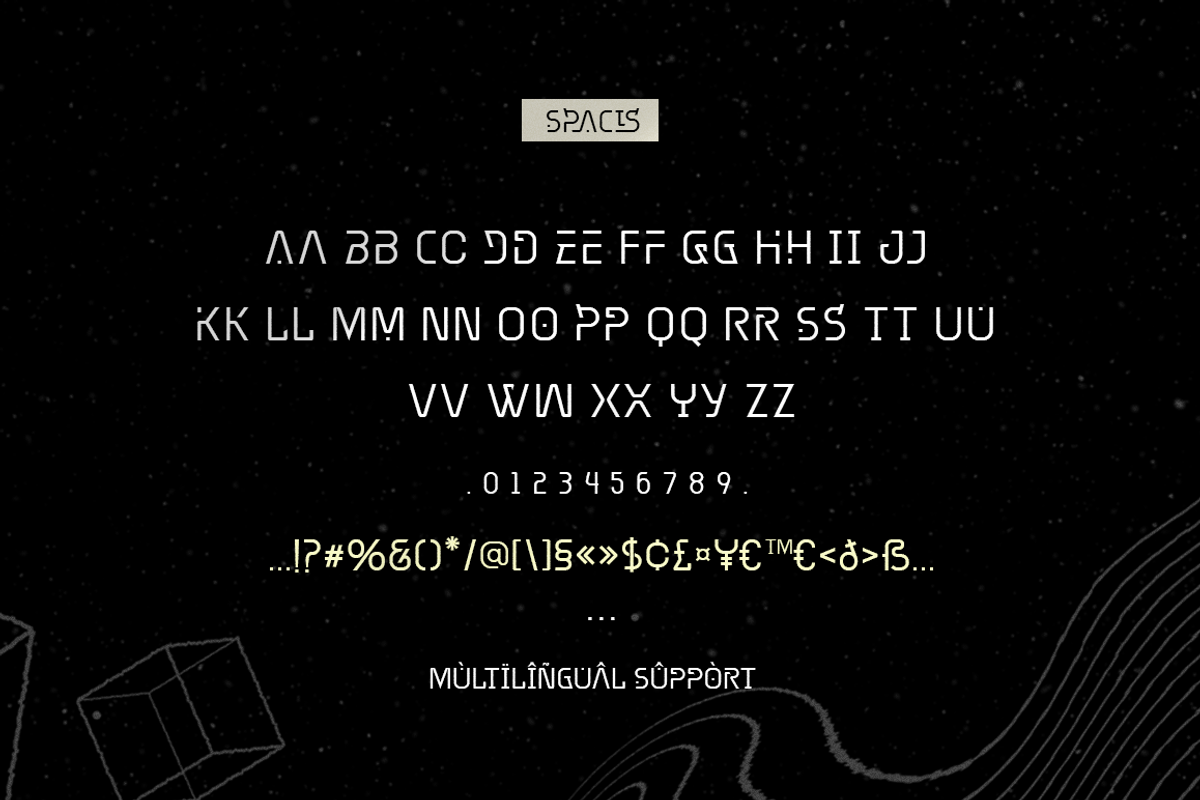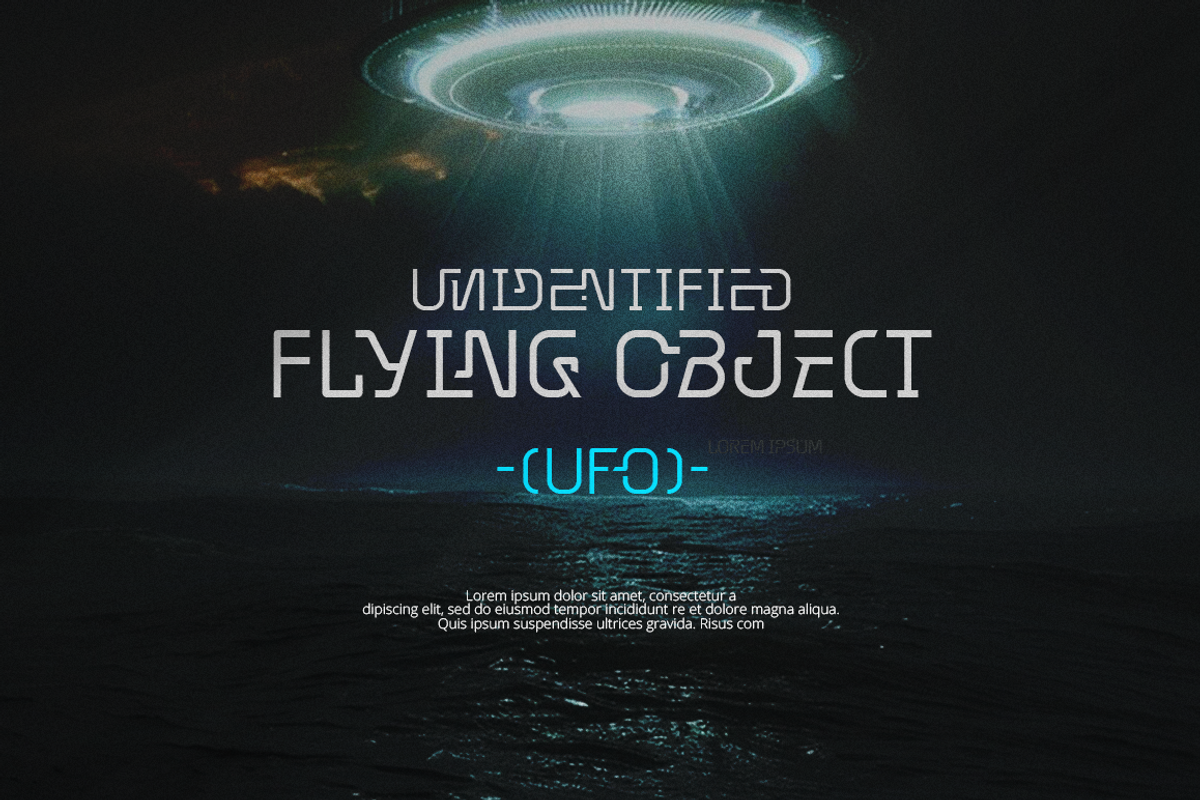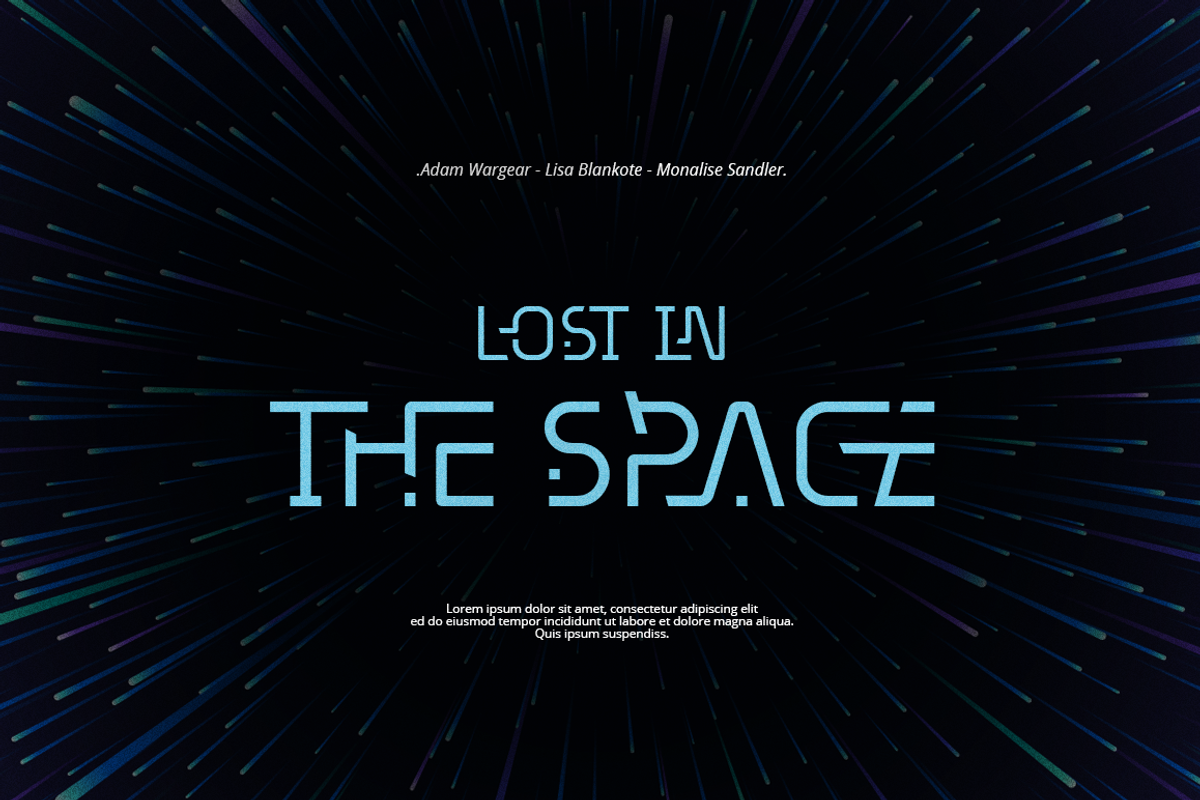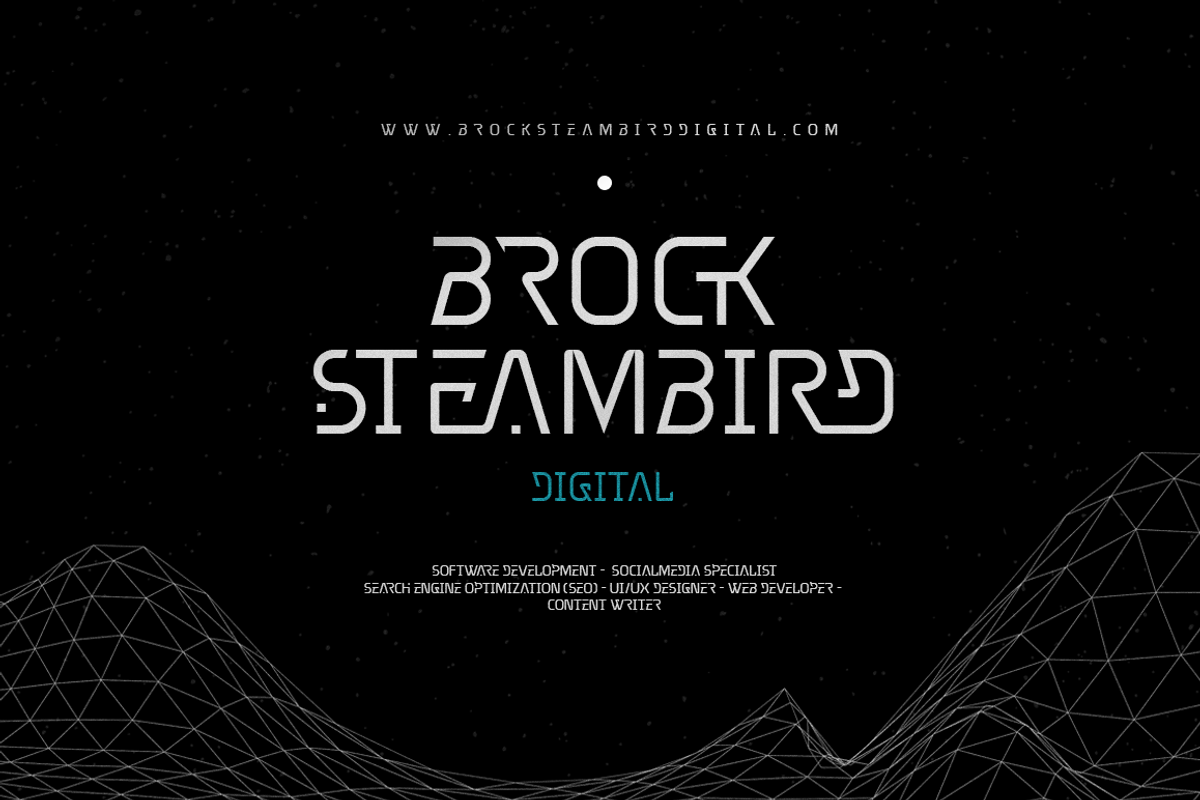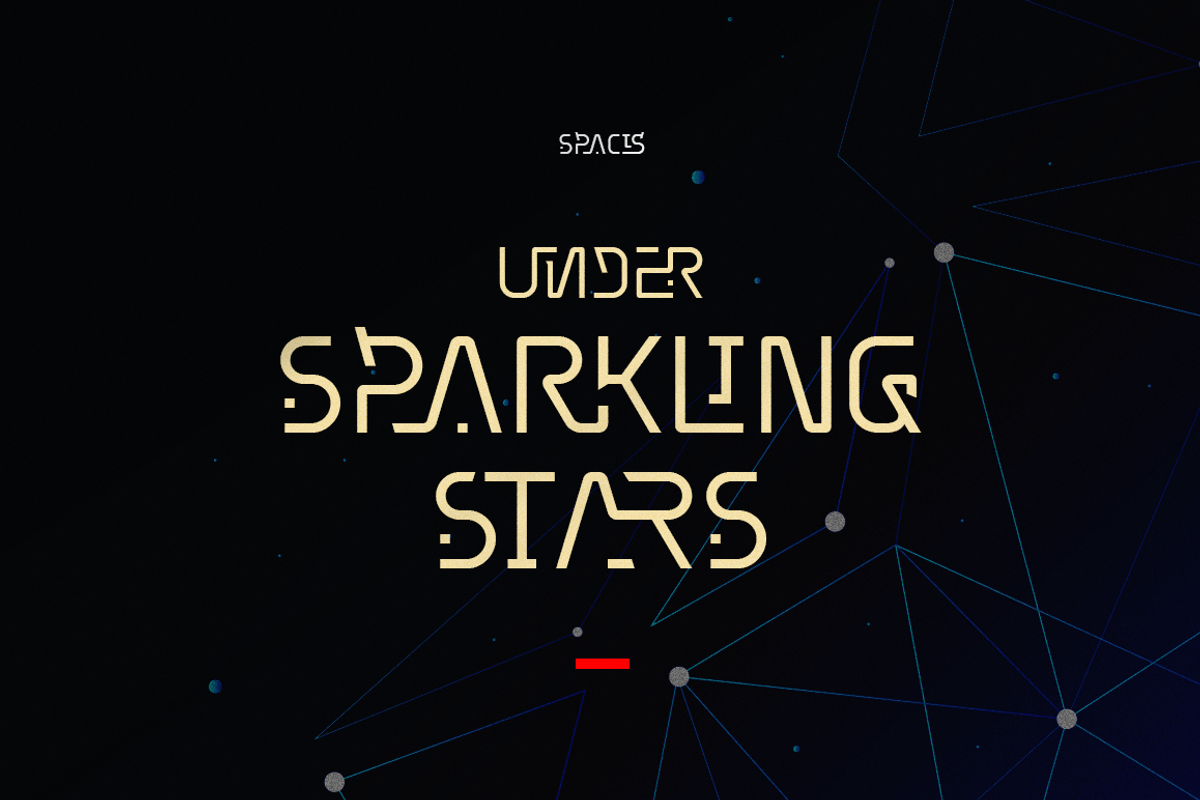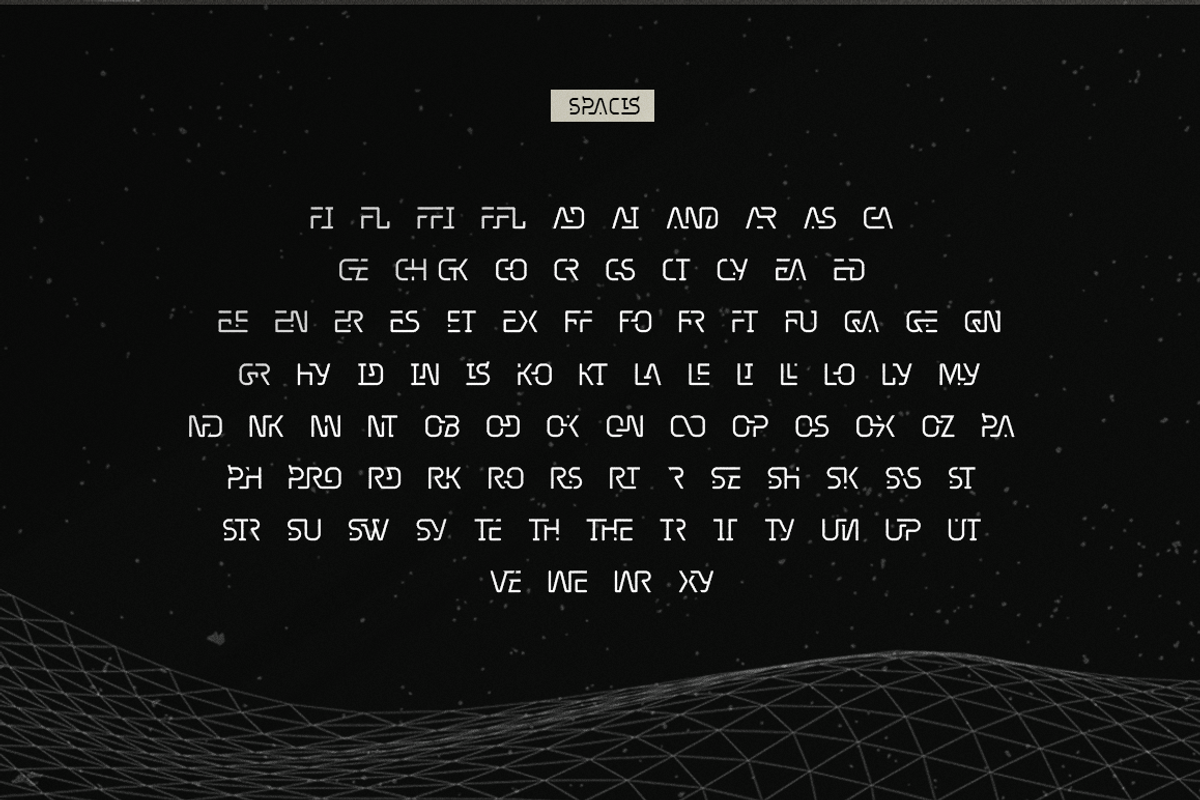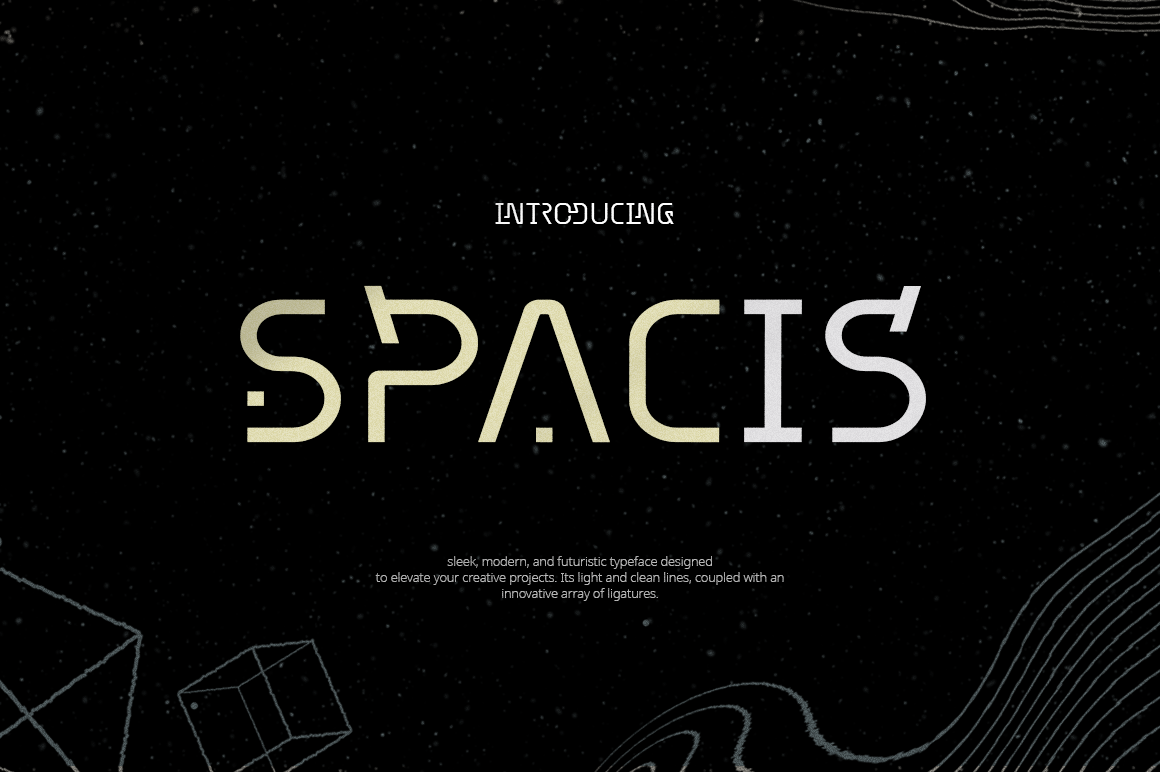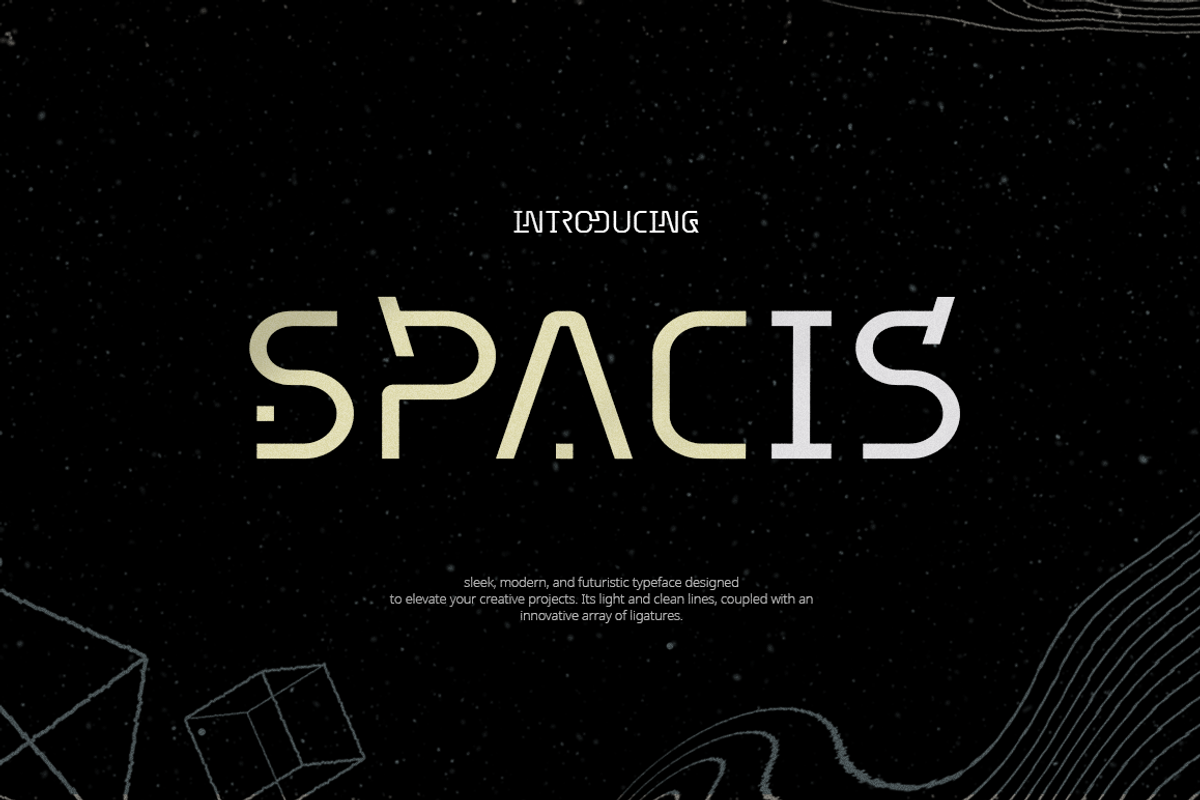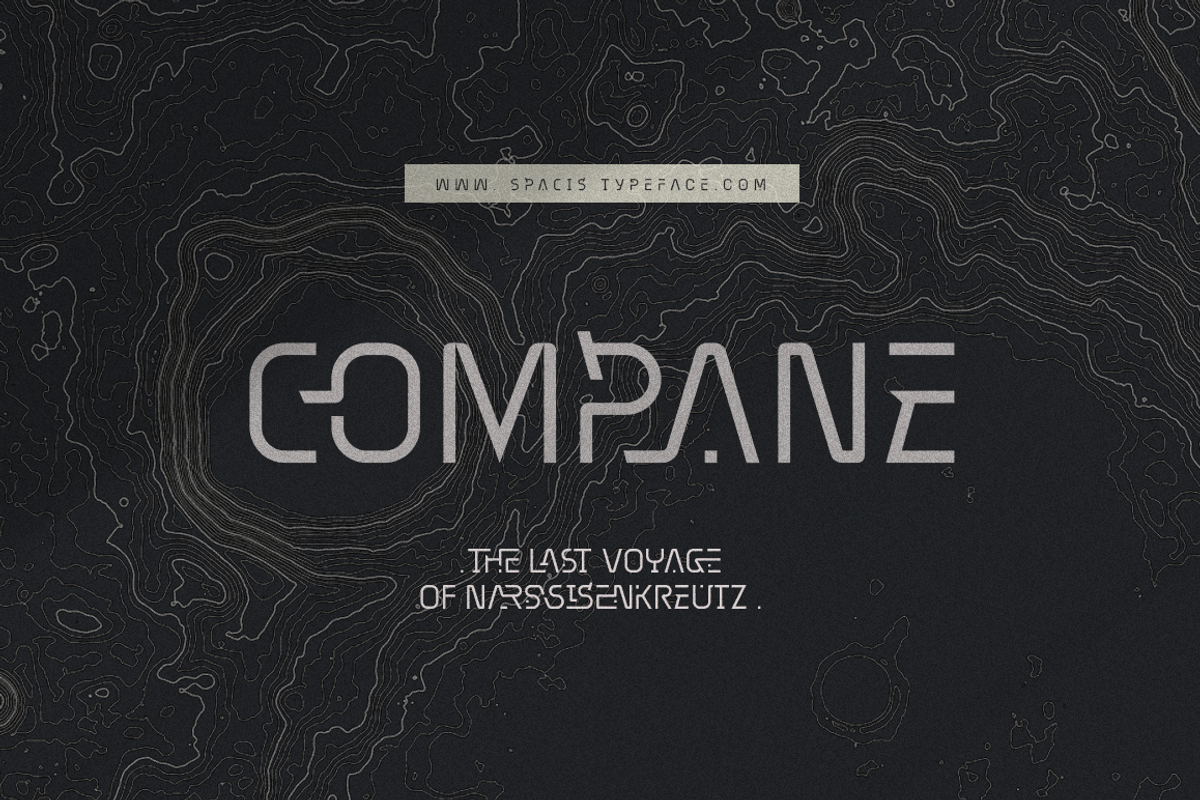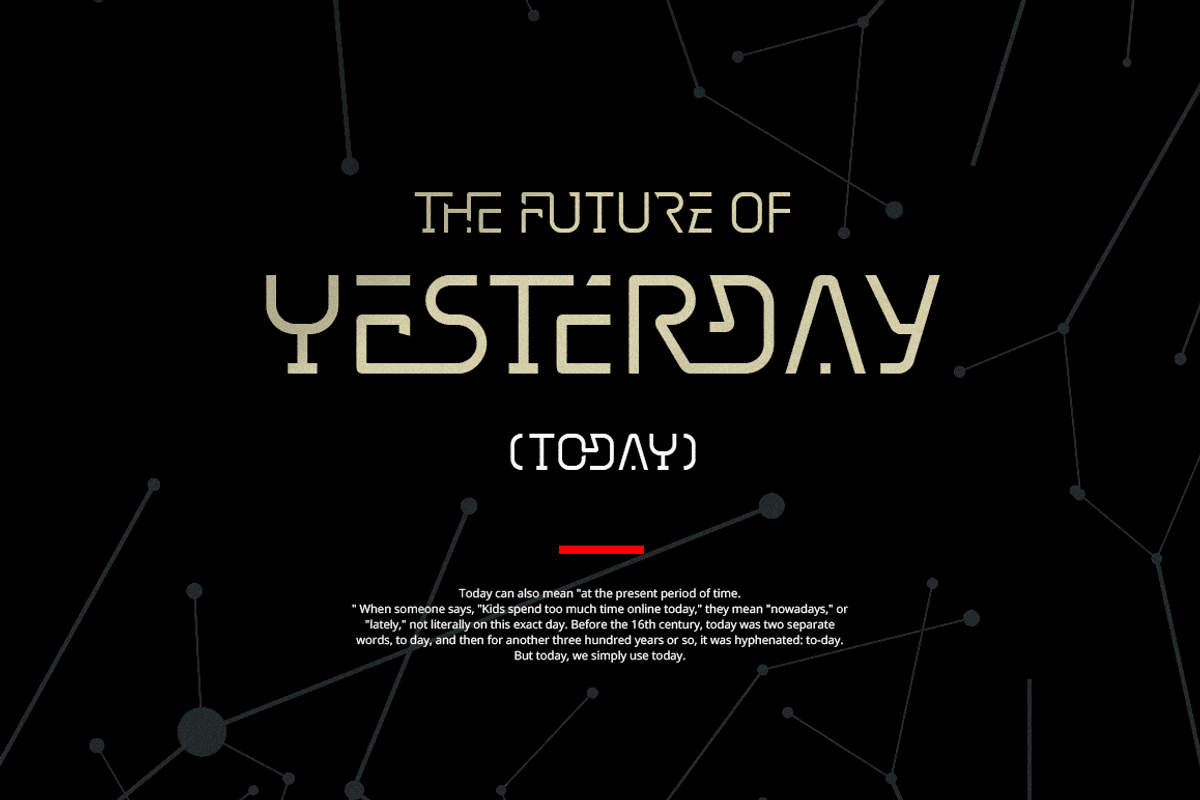
Spacis - Futuristic Font
Spacis is a sleek, modern, and futuristic typeface designed to elevate your creative projects. Its light and clean lines, coupled with an innovative array of ligatures, make it a perfect choice for anyone seeking a contemporary and professional aesthetic. This font is ideal for crafting standout logos, as its minimalist yet distinctive design ensures versatility and sophistication. Whether you're designing for tech startups, futuristic brands, or modern themes, Spacis delivers a balance of elegance and creativity.
Unlock limitless possibilities and add a cutting-edge vibe to your designs with Spacis.
- Futuristic Font
- Unique All Caps Font
- More ligatures & Alternate